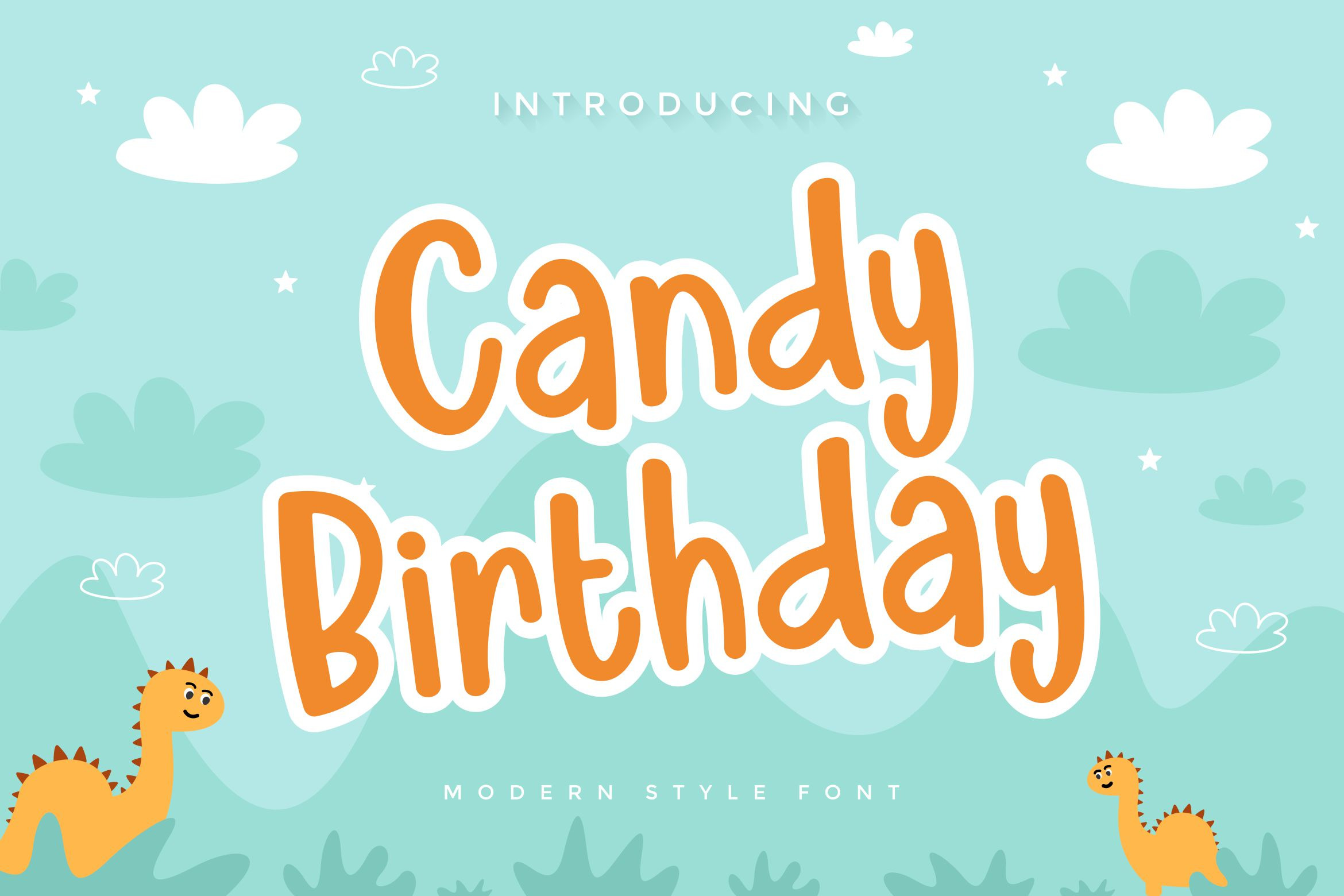
Candy Birthday Font
Introducing our new product Candy Birthday - Modern Font
Candy Birthday is a bold, modern display font with playful flair, ideal for attention-grabbing headlines, logos, and diverse design projects. Versatile and readable in both digital and print, Candy Birthday adds a dynamic touch to your message.